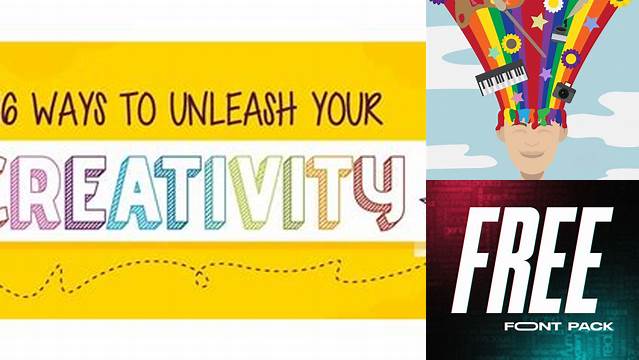
Free Font Pack ZIPs: Unleash Your Design Potential!
Hey everyone! Are you ready to jazz up your designs and make them pop? Well, you're in the right place! We're diving headfirst into the awesome world of free font pack ZIP files. Think of it as a treasure chest overflowing with typography goodies, just waiting for you to unlock its secrets. This isn't just about fonts; it's about expressing yourself, adding personality to your projects, and maybe even snagging that perfect font that takes your work to the next level. So, let's get started and explore everything you need to know about these fantastic resources.
Free Font Pack ZIP: Your Gateway to Design Bliss
Free font pack ZIP files are, in essence, digital bundles containing a collection of fonts, neatly packaged into a compressed ZIP archive. This makes downloading and managing multiple fonts super easy. Forget sifting through endless individual font downloads; with a ZIP, you get a curated selection ready to roll. These packs often include various font styles, from elegant serifs to funky sans-serifs, playful scripts, and everything in between. The best part? Many are available for free, opening up a world of design possibilities without breaking the bank. For those of you just starting out, or even experienced designers looking for fresh options, free font pack ZIP files are an invaluable resource. They allow you to experiment with different typefaces, discover new design aesthetics, and find the perfect fonts to match your specific projects. Think of them as a toolkit that you can use to create beautiful and appealing content, whether it's for websites, social media, print materials, or personal projects. Imagine crafting stunning social media graphics, designing eye-catching logos, or even creating beautiful invitations, all empowered by the versatility and creative freedom that these font packs offer. So, if you're looking to inject some serious design flair into your work, exploring free font pack ZIP files is a must-do. They're a simple, convenient, and cost-effective way to significantly boost the visual appeal of your projects and get your creative juices flowing.
Discovering the Perks of Using Font Packs
Let's talk benefits, shall we? First and foremost, free font pack ZIP files offer incredible convenience. Instead of hunting down fonts one by one, you get a collection in one go, saving you precious time and effort. This is a massive advantage, especially when you're working on tight deadlines. Secondly, these packs often introduce you to fonts you might not have discovered otherwise. Many font designers and foundries package their fonts in these formats, exposing you to a wide range of styles and design options. This exposure helps you to expand your creative horizons, encouraging you to experiment with different typographic approaches. You'll find yourself getting exposed to a world of diverse font choices that you didn't know existed! Thirdly, the cost factor is a huge draw. Who doesn't love free stuff? You can access high-quality fonts without spending a dime, making them accessible to everyone, regardless of budget. This is especially beneficial for students, freelancers, and small businesses. Furthermore, these packs often come with detailed information about each font, including its license, intended use, and designer. This helps you to understand the legal aspects of font usage and avoid any potential copyright issues. Lastly, using free font pack ZIP files can dramatically enhance the visual appeal of your designs. The right font can transform an ordinary piece of content into something that’s super engaging. It can make your brand message more memorable, grab the attention of your audience, and leave a lasting impression. With free font pack ZIP files, you have the power to design assets that really stand out.
Exploring Popular Free Font Packs
Alright, let's dive into some of the amazing free font packs you can get your hands on. Trust me, there is a wealth of options, each one designed to give you the creative tools you need. We'll talk about the best font websites and places to find your perfect design companion.
Top Websites for Finding Free Font Pack ZIPs